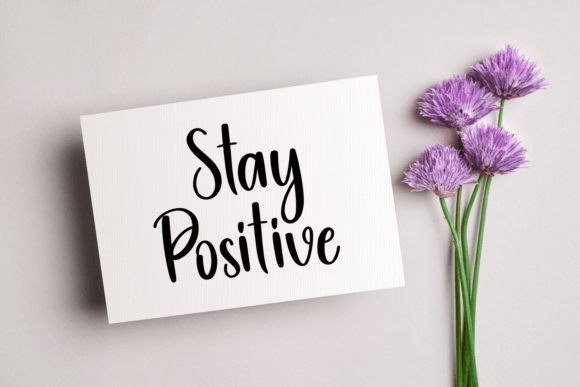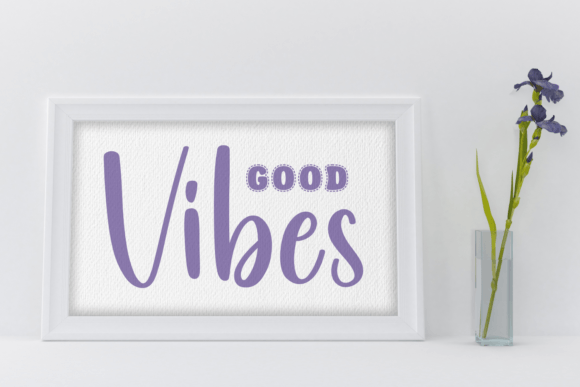
The Abling Font: Elevate Your Designs with Elegance and Sophistication
I’ll never forget the time I was working on a wedding invitation project, and my client asked for a font that exuded elegance and sophistication. I scoured the internet, tried countless fonts, but nothing seemed quite right. That was until I stumbled upon the Abling font. Its smooth, flowing lines and handwritten appearance instantly caught my eye, and I knew I had found the perfect fit. In this article, I’ll share my experience with the Abling font, its features, and how to make the most of it in your designs.
A Personal Review of Abling Font
- ✨ Elegant and sophisticated: Abling font is perfect for projects that require a touch of refinement and luxury.
- ✅ Versatile: It works beautifully for both print and digital media, making it a great addition to any designer’s toolkit.
- 💫 Handwritten appearance: The font’s flowing lines and smooth curves give it a personal, human touch that’s hard to find in digital fonts.
- 📚 Classic calligraphy inspiration: Abling font draws inspiration from traditional calligraphy, adding a sense of timelessness to your designs.
While the Abling font is exceptional, there are a few minor quirks to be aware of:
- 🤔 Limited character set: As with any font, there may be limitations to the character set, so be sure to check the font’s capabilities before committing to a project.
- ⚠️ Requires careful kerning: As with any script font, kerning can be a bit tricky. Take the time to adjust the kerning to ensure your text looks its best.
The Story Behind Abling Font
The Abling font was created by a talented type designer who drew inspiration from classic calligraphy. With a passion for elegant, sophisticated typography, the designer aimed to create a font that would add a touch of refinement to any project. Through careful craftsmanship and attention to detail, the Abling font was born – a beautiful, versatile typeface that’s perfect for a wide range of design applications.
Q: What type of projects is Abling font best suited for?
A: Abling font is perfect for projects that require elegance and sophistication, such as wedding invitations, branding, editorial designs, signage, and displays.
Q: Is Abling font suitable for digital media?
A: Yes, Abling font works beautifully for digital media, including websites, social media graphics, and digital signage.